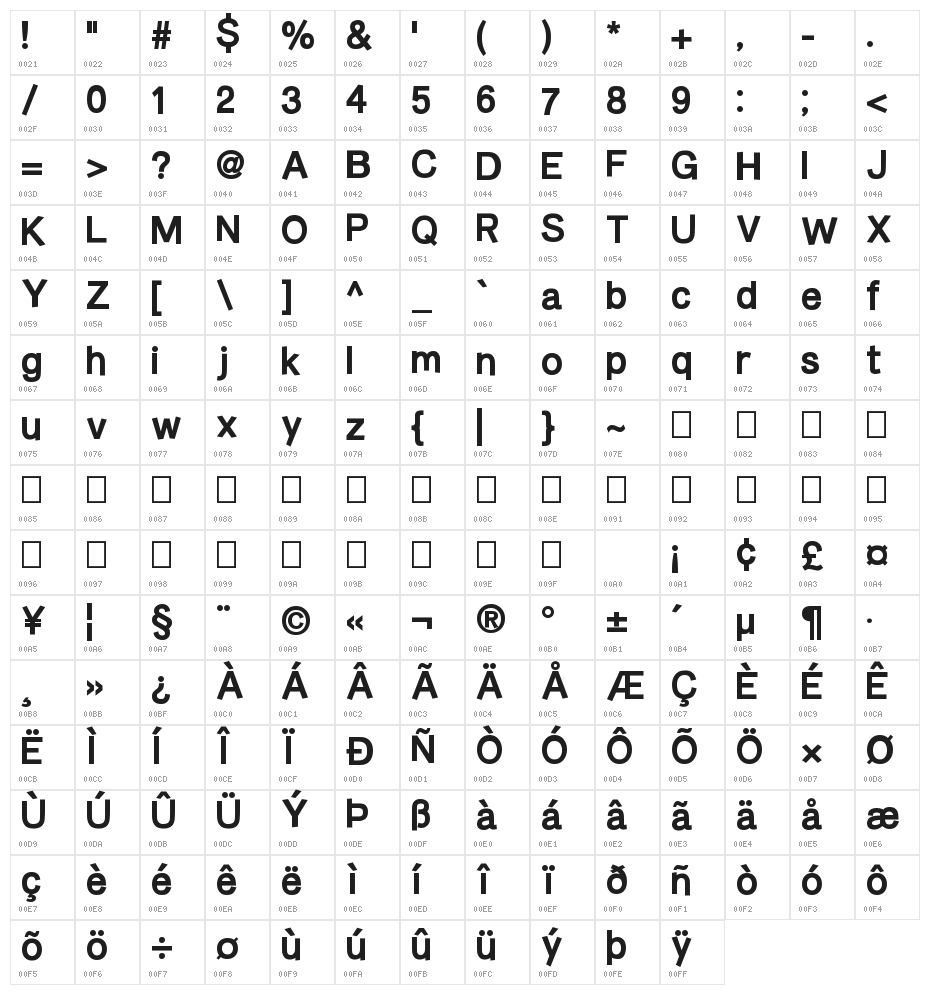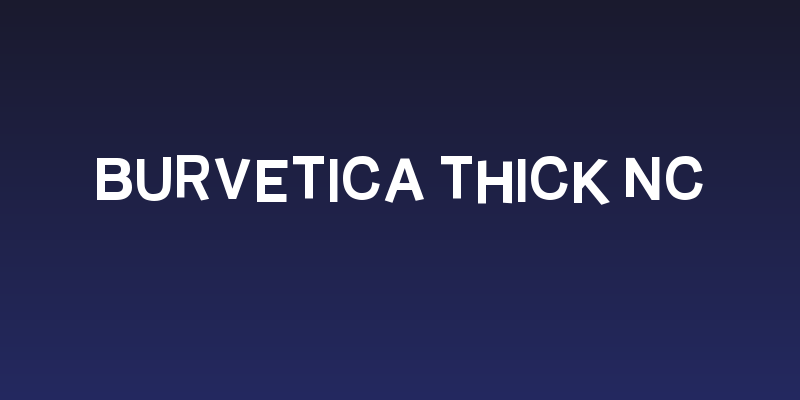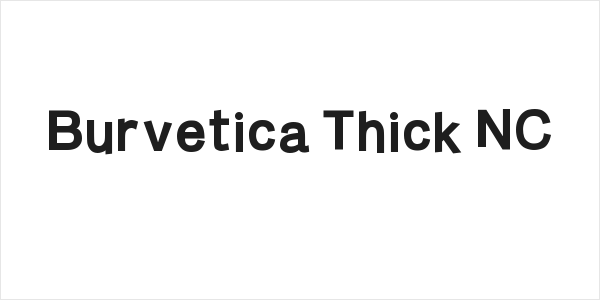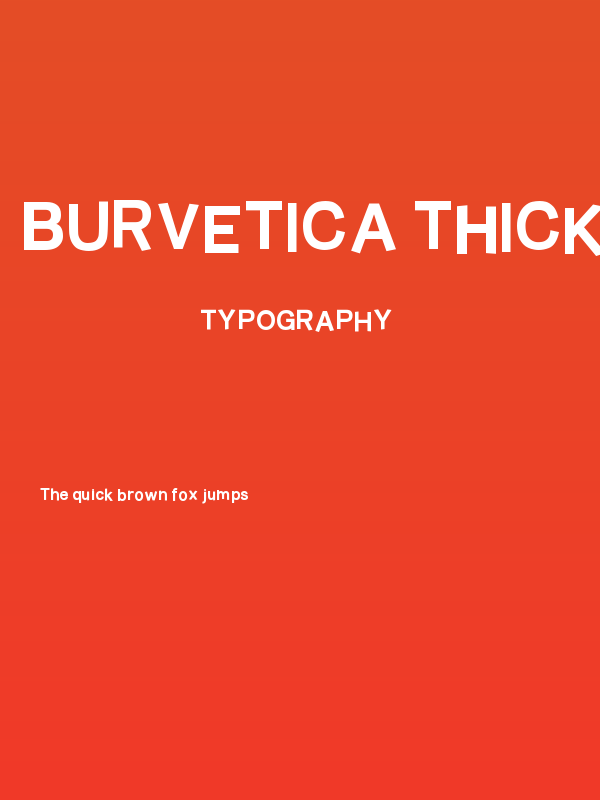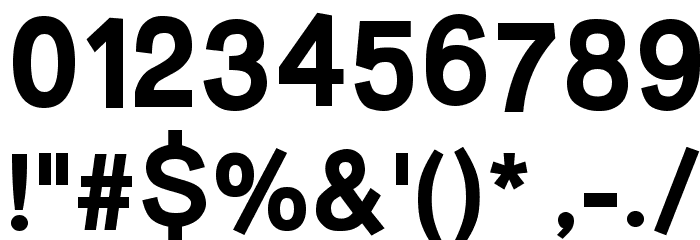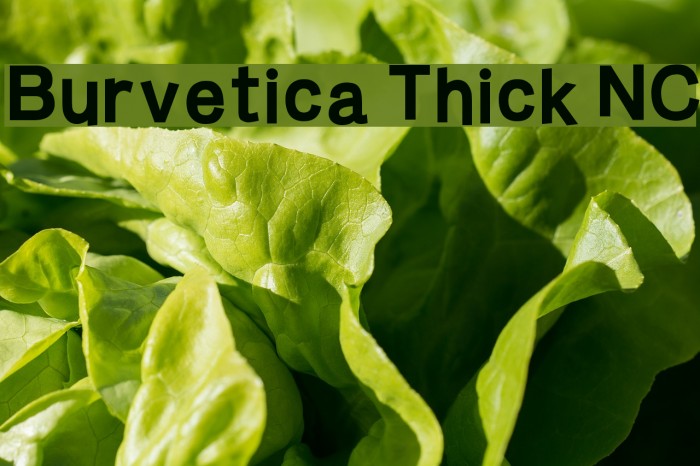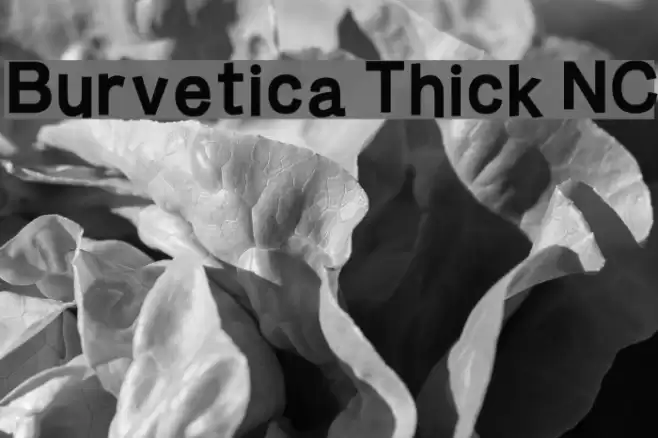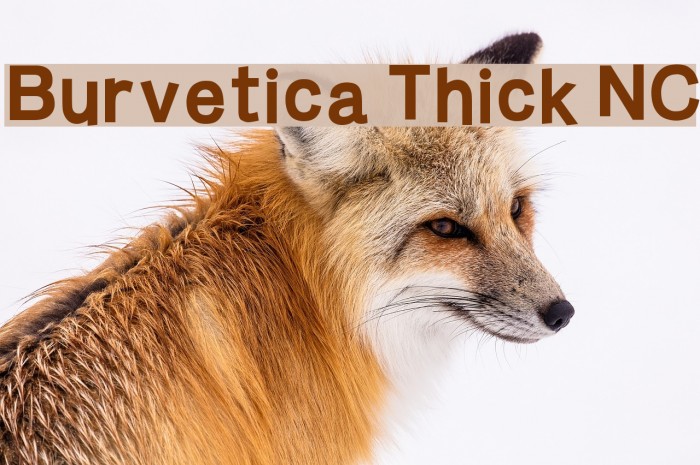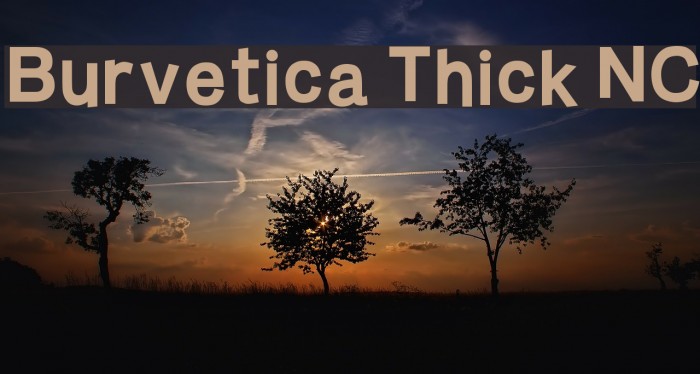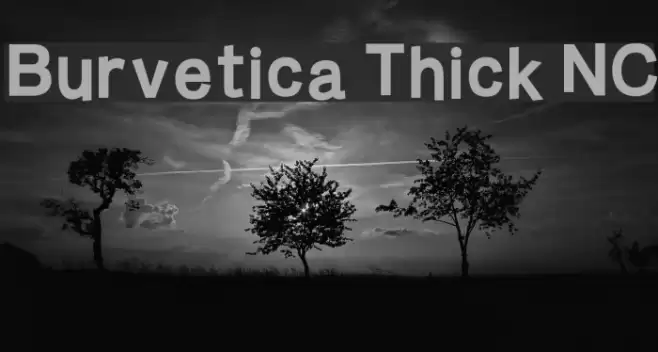
Burvetica Thick NC Font
Burvetica Thick NC Description
This font features a bold and clean design, characterized by thick, uniform strokes that convey a strong and modern aesthetic. The characters are well-defined with a consistent weight throughout, making it highly legible and suitable for various applications. The uppercase and lowercase letters maintain a harmonious balance, while the numerals and special characters are crafted with precision, ensuring clarity and readability. Its simplicity and boldness make it versatile for both digital and print media.
| Use Case | Headlines, Logos, Signage |
| Proposed Projects | Ideal for branding, advertising, headlines, and signage due to its bold and clear appearance. |